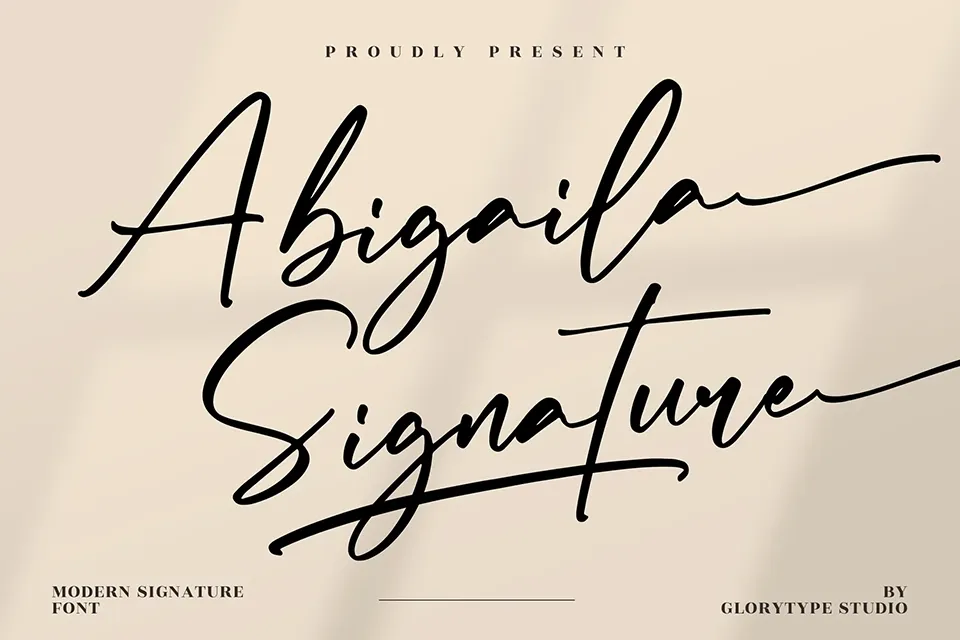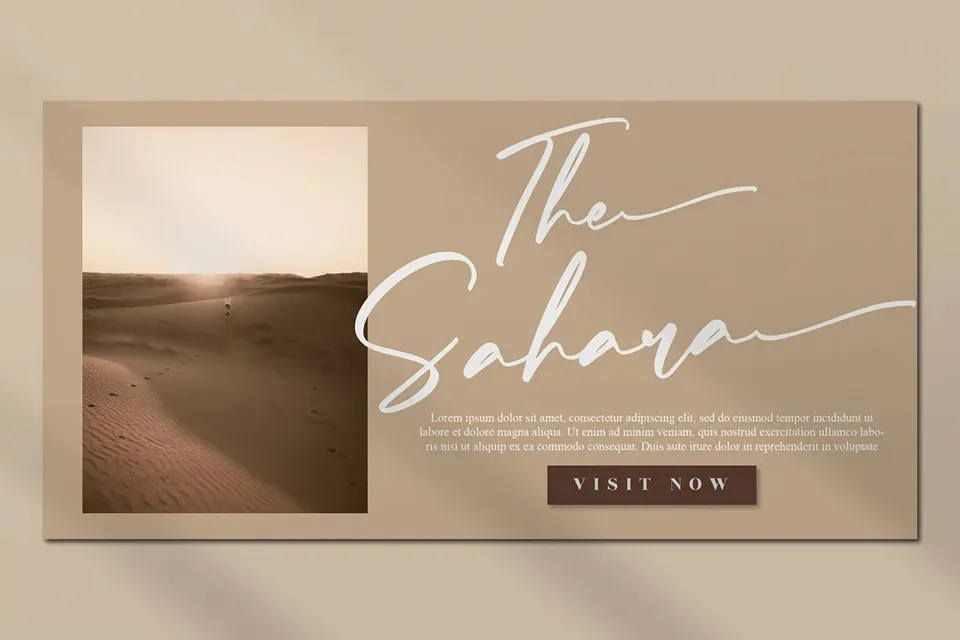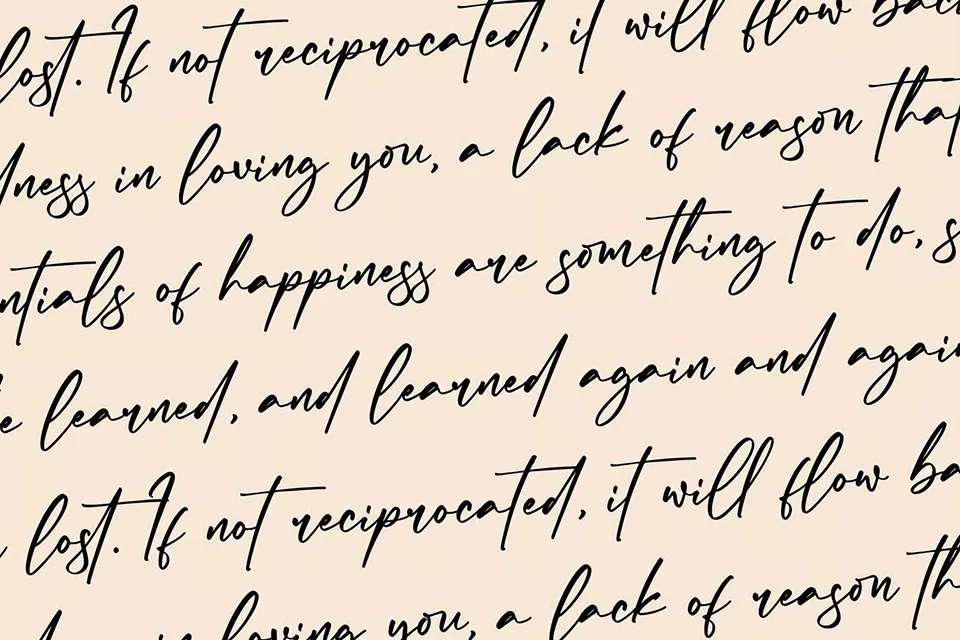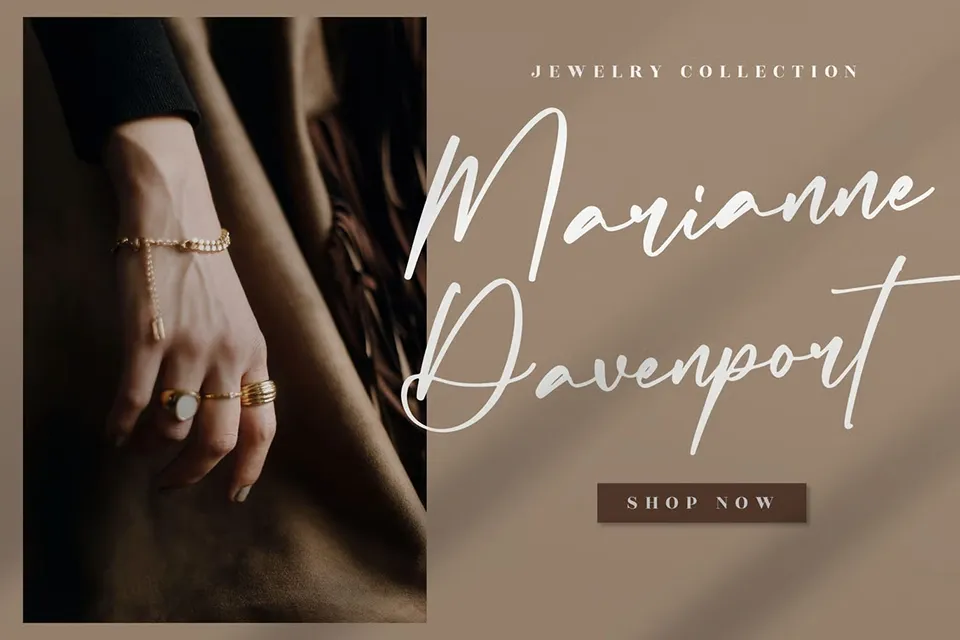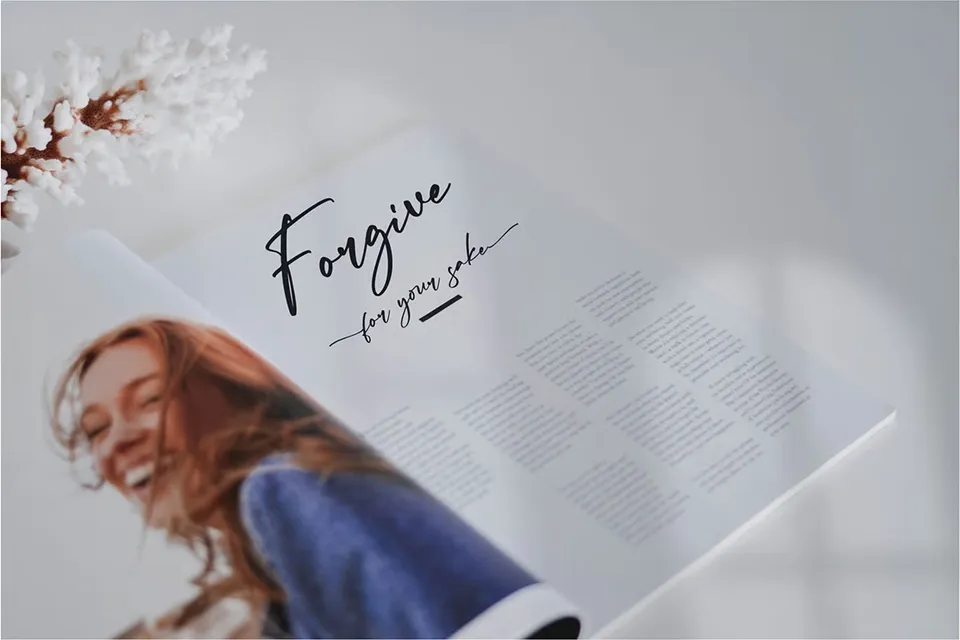
Abigaila Signature Font
Abigaila Signature Font is a captivating handwritten font that exudes elegance and sophistication. Its semi-light weight gives it a delicate and refined appearance, perfect for creating an intimate and personalized touch in various design projects. The fluidity of characters suggests a natural, effortless grace, making it ideal for invitations, branding materials, and editorial content that require an authentic signature feel. The aesthetic appeal lies in its beautifully crafted letters that mimic the nuanced strokes of a skilled calligrapher, ensuring both readability and stylistic flair for digital graphics and printed media.